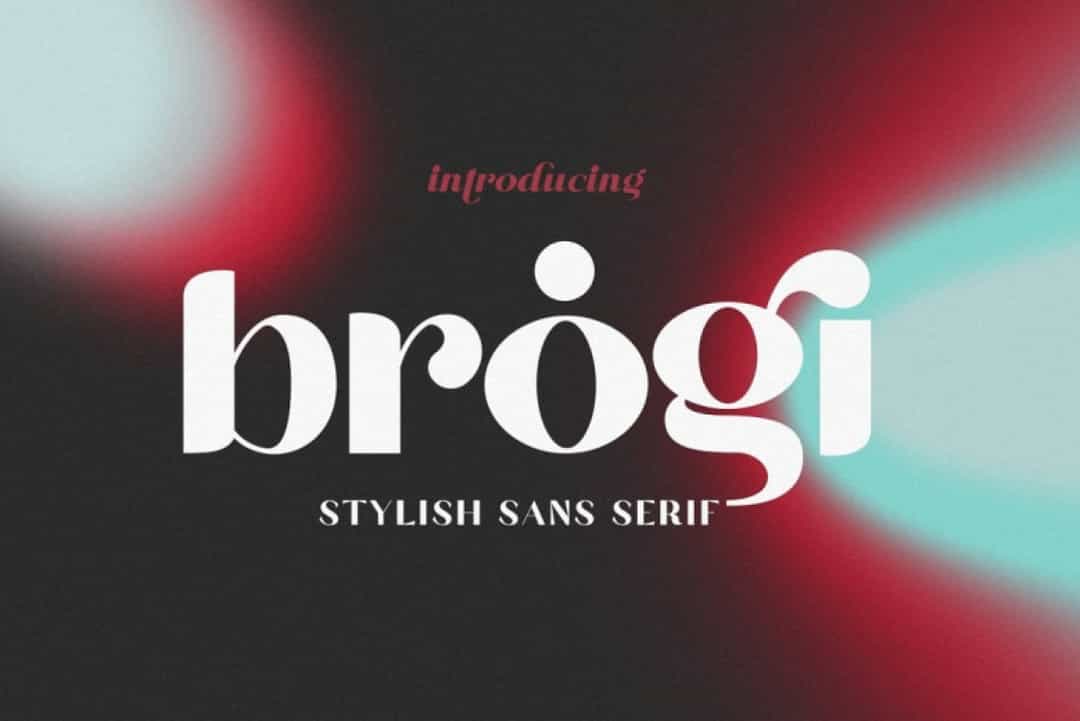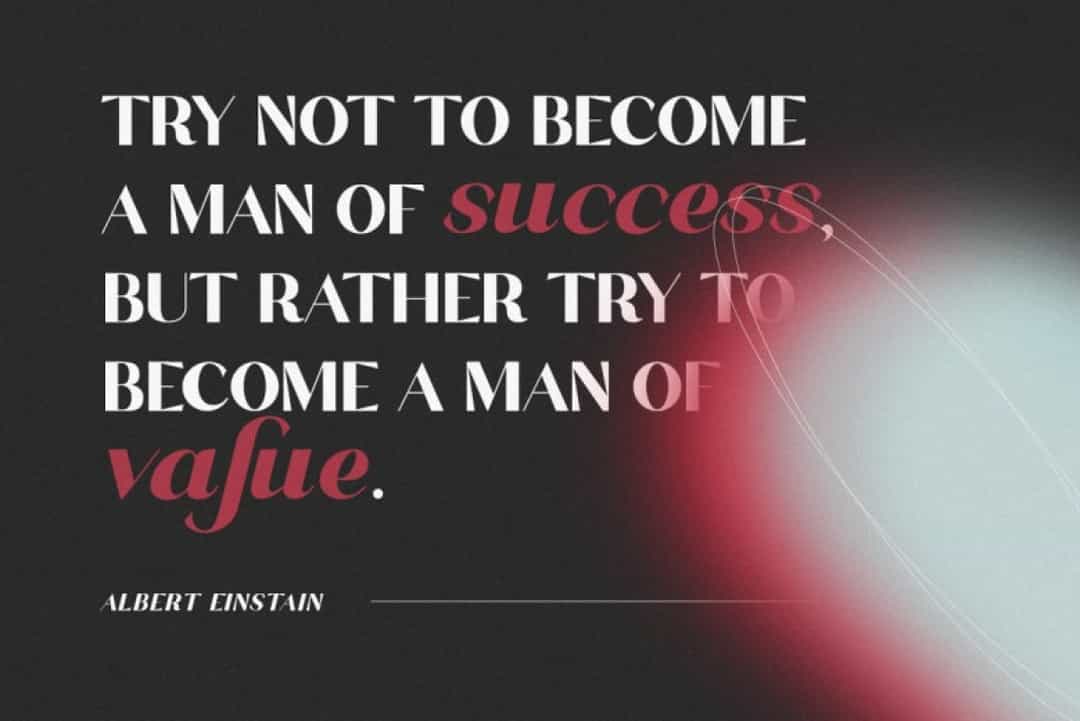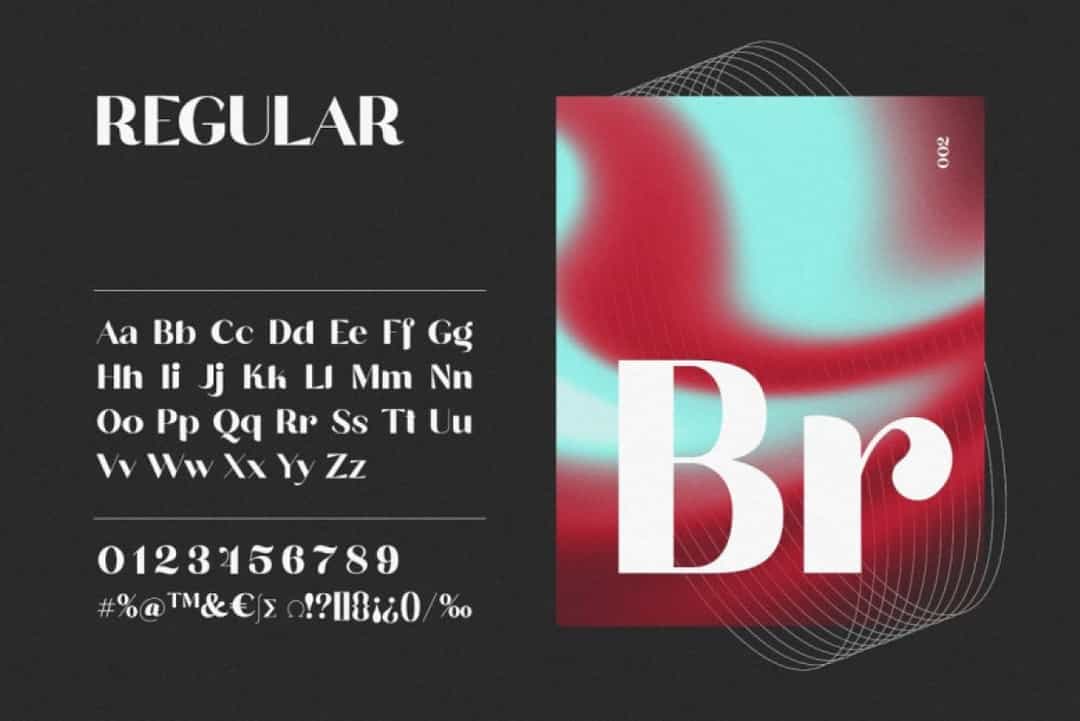
Discover Brogi Font, part of the Sans Serif collection—a versatile and unique font perfect for adding a personal touch to your projects. Download it for free and enjoy crafting designs with style, from invitations to social media posts. This font is available exclusively for personal use, giving you the freedom to create without limits. Unlock your creativity with Brogi Font today!
Brogi is an elegant sans-serif font designed specifically for branding and logo design purposes, exuding elegance yet boldness despite his intimidating designs. Ligature fonts can serve a multitude of functions for branding purposes – you just have to think outside the box!